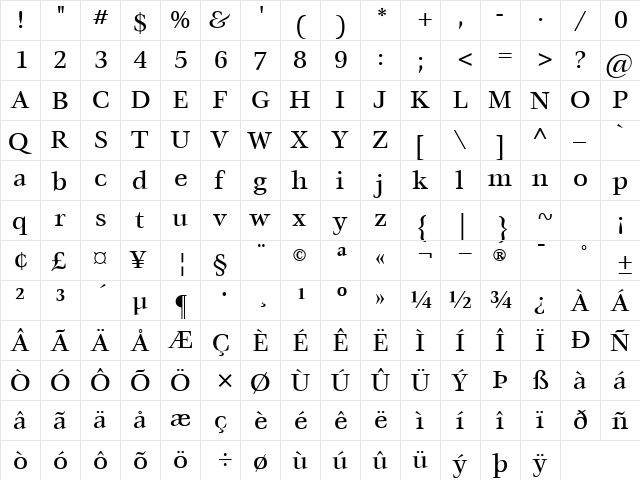
Mature Regular
Design Context for Mature Typeface
Mature offers clean, dependable letterforms without strong stylistic allegiance, making it a practical choice for designers who need flexibility.